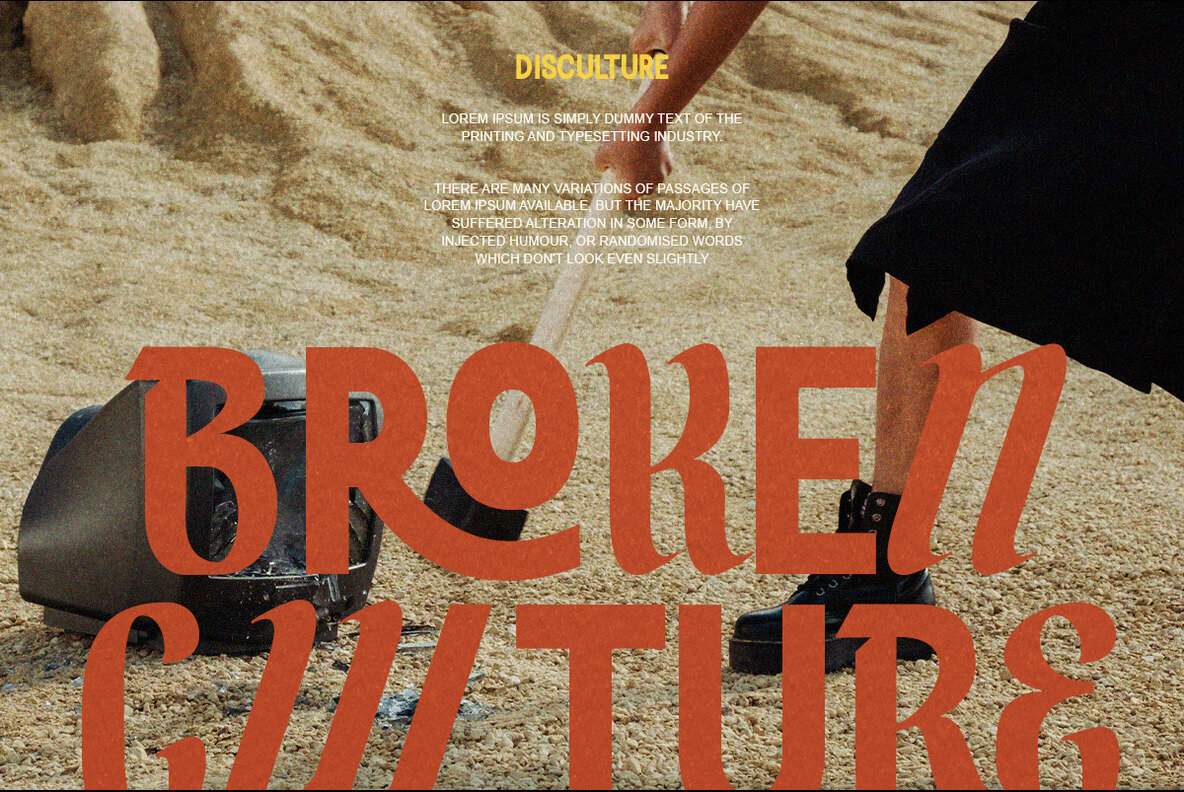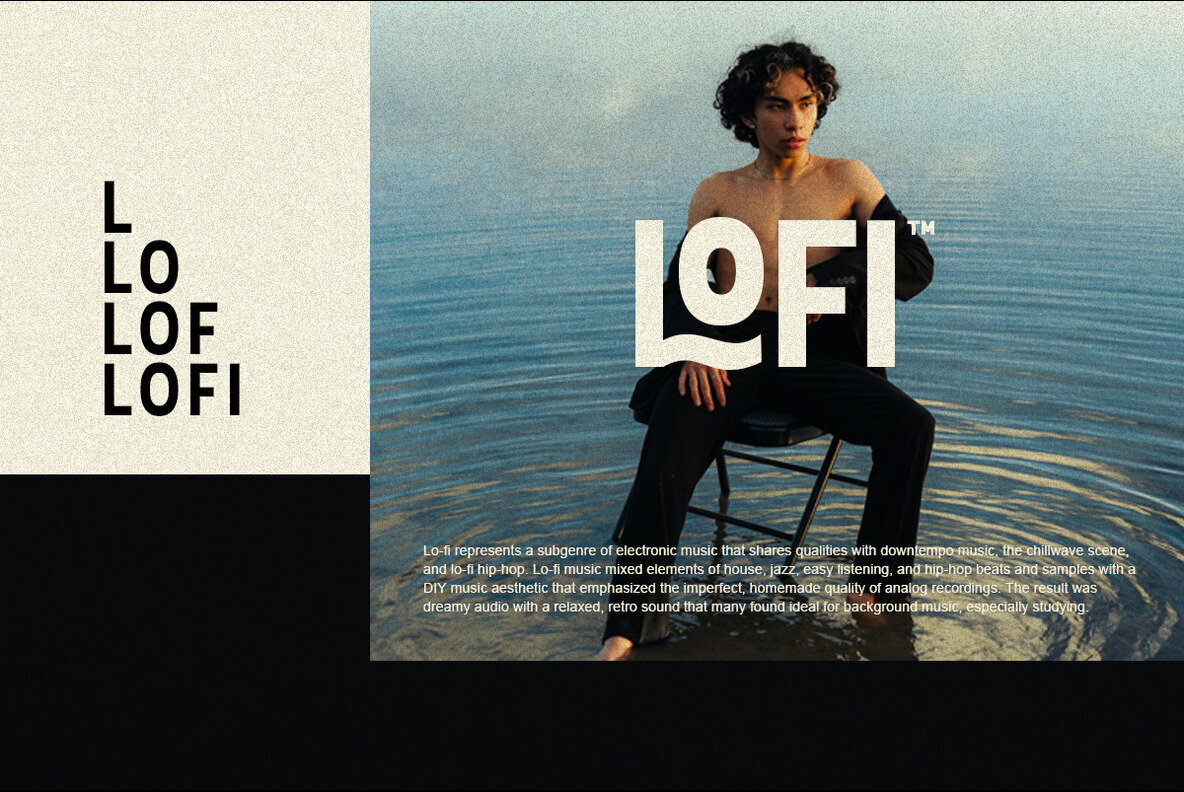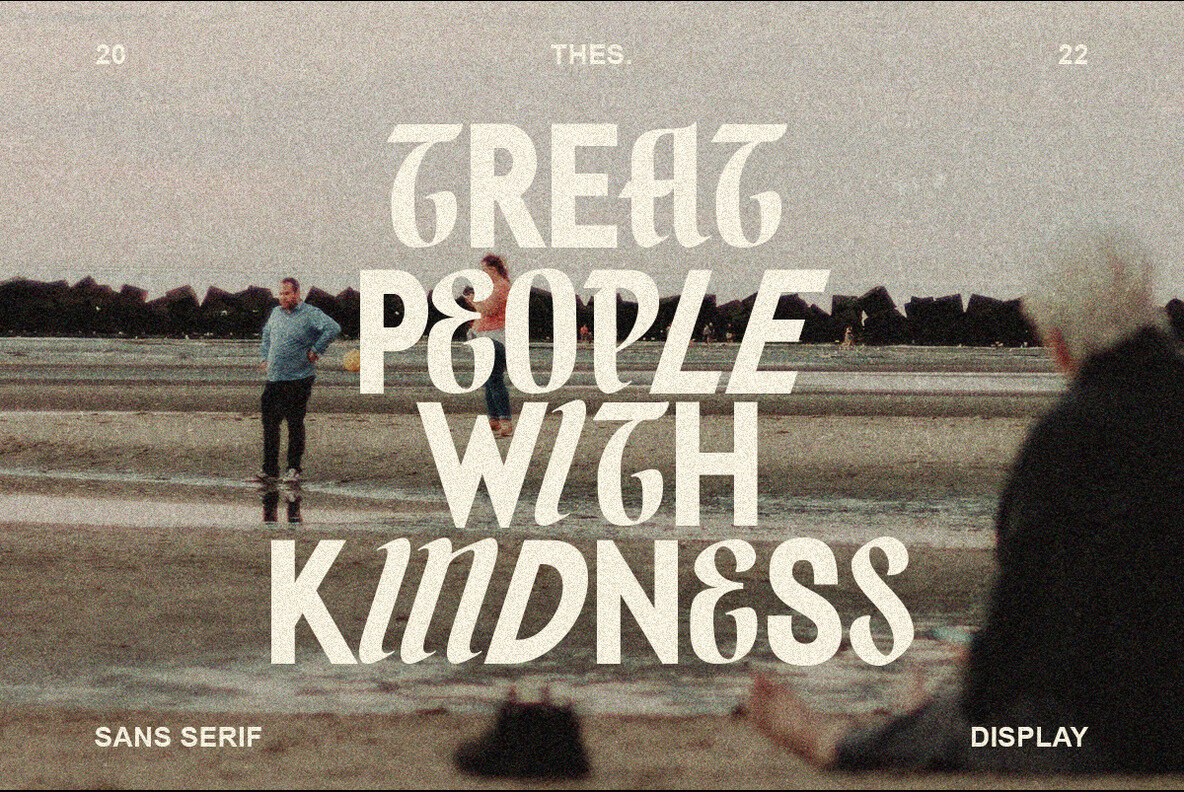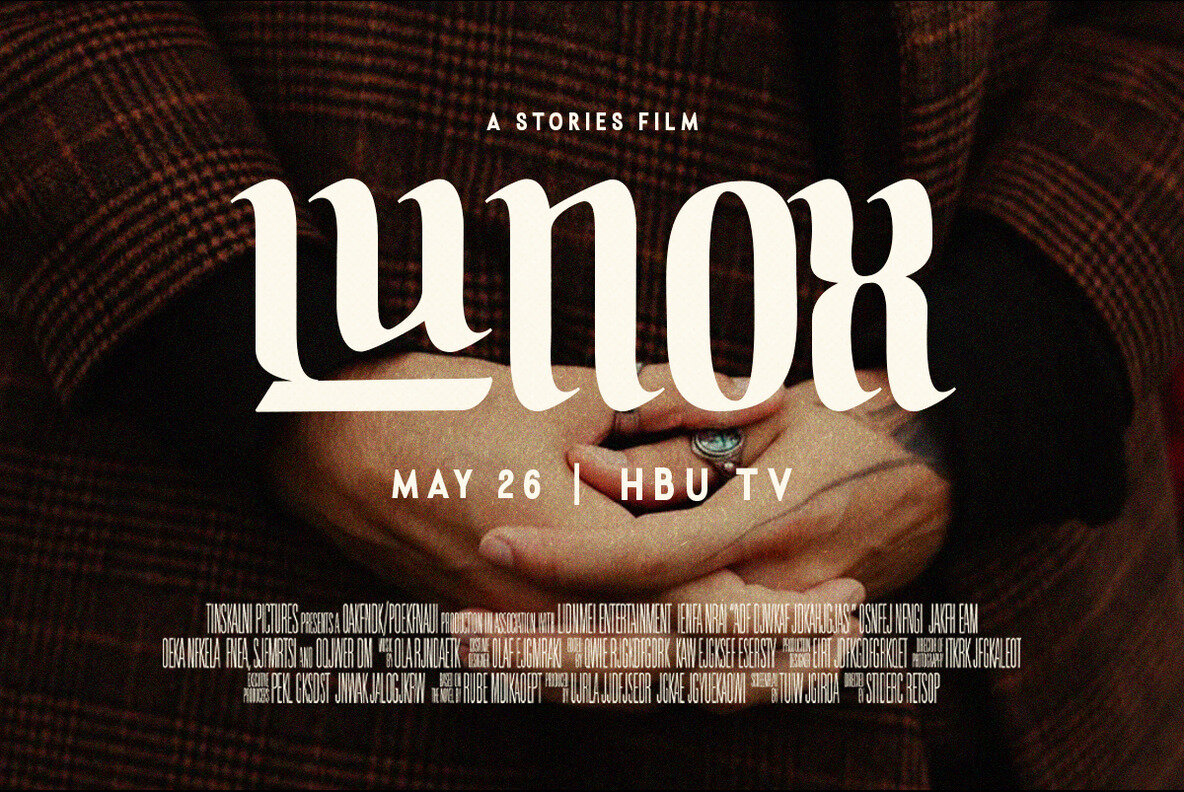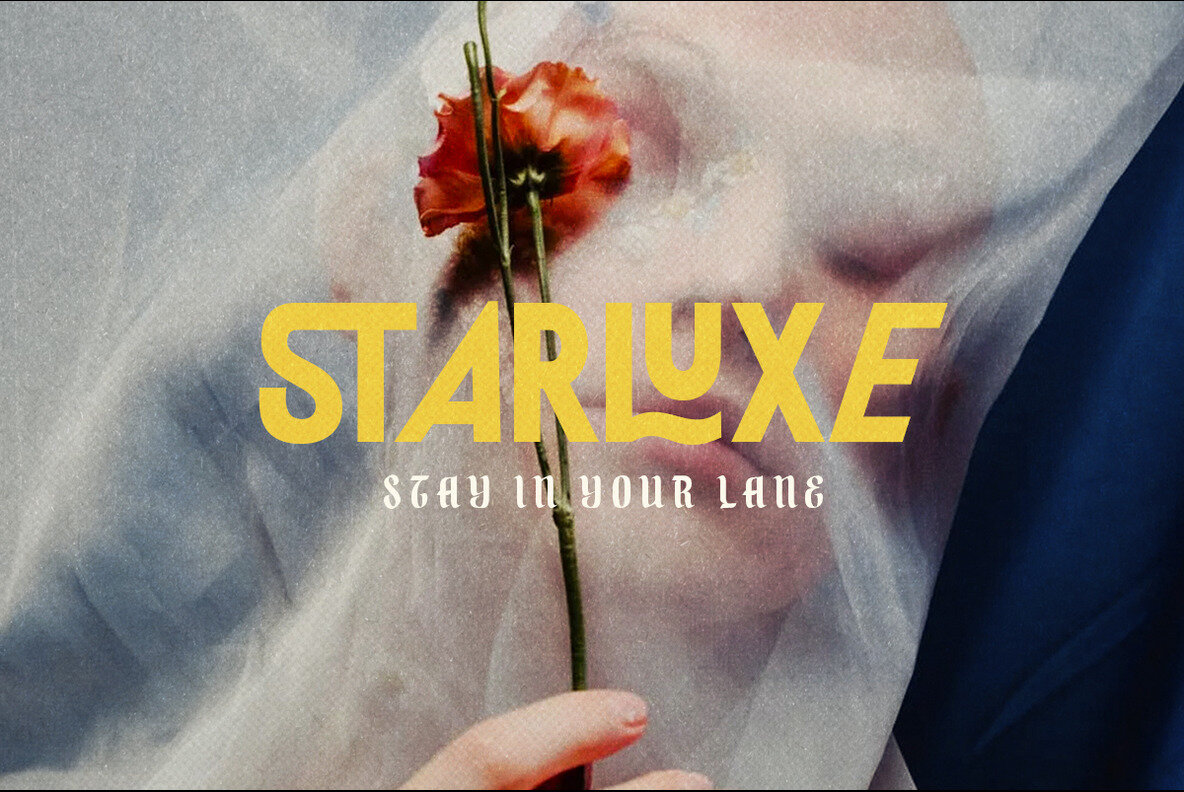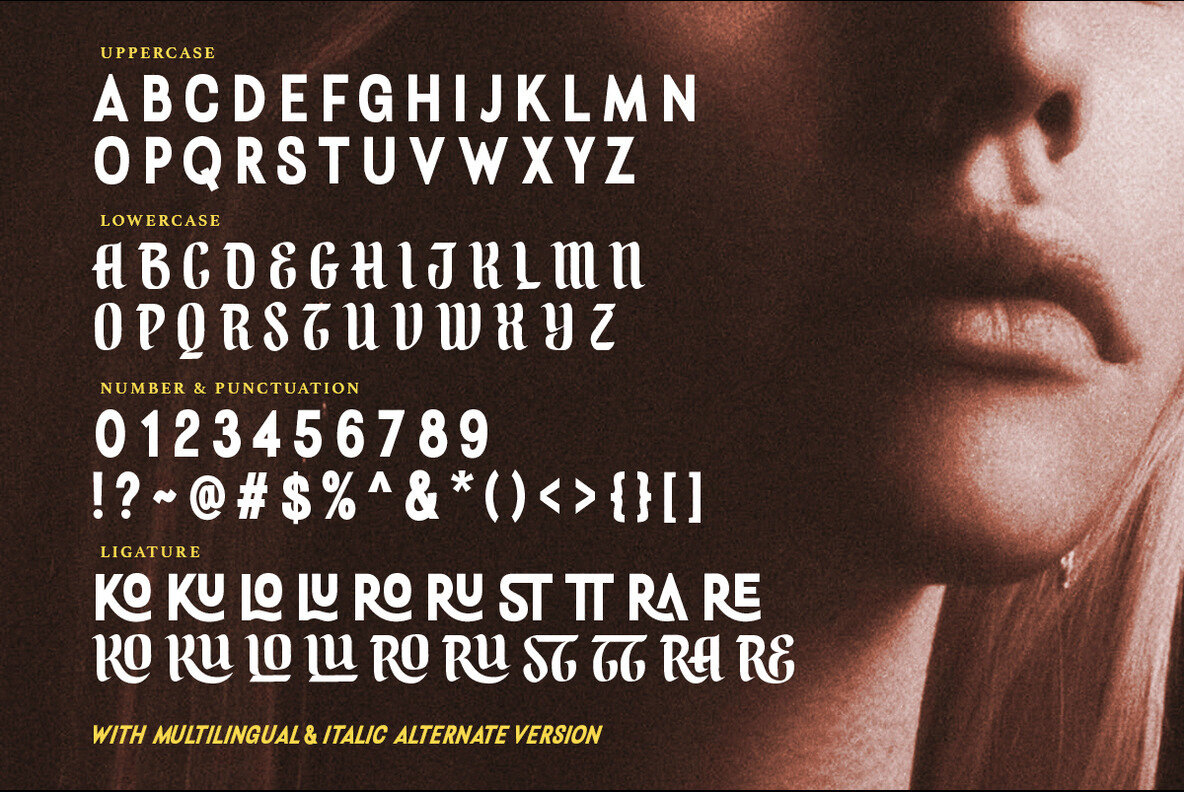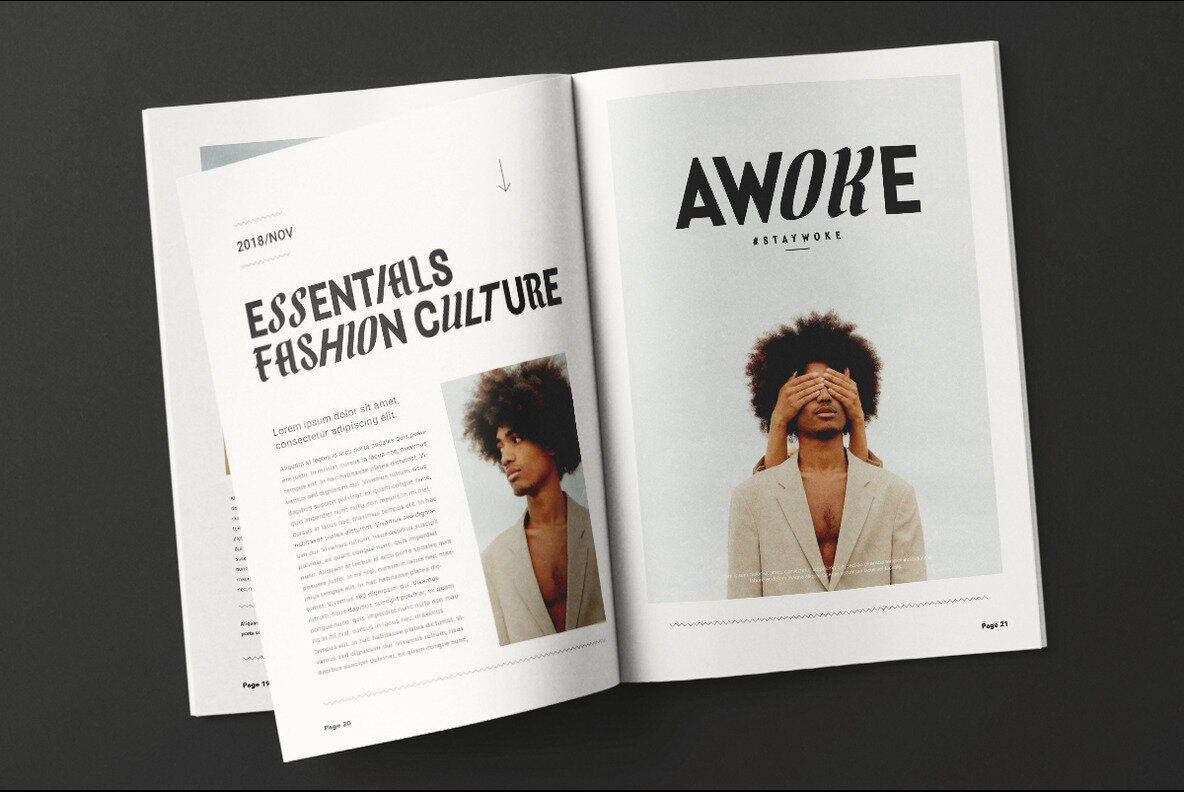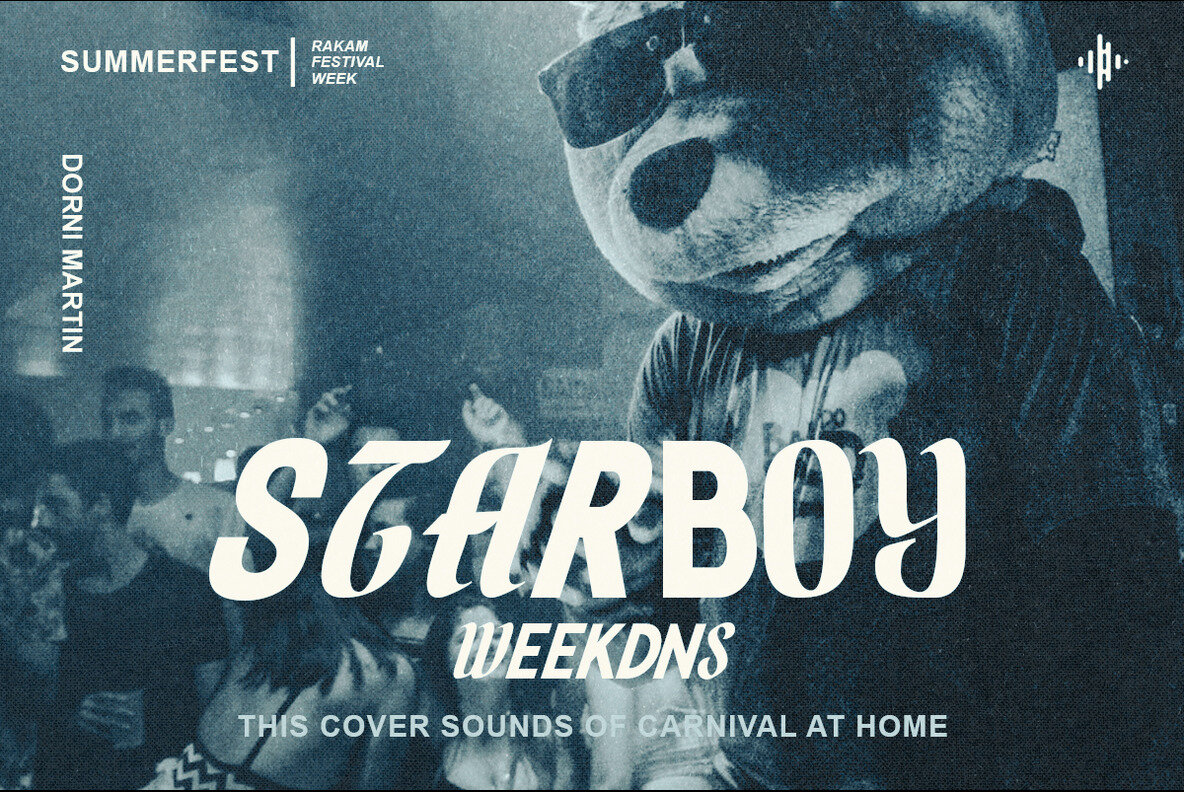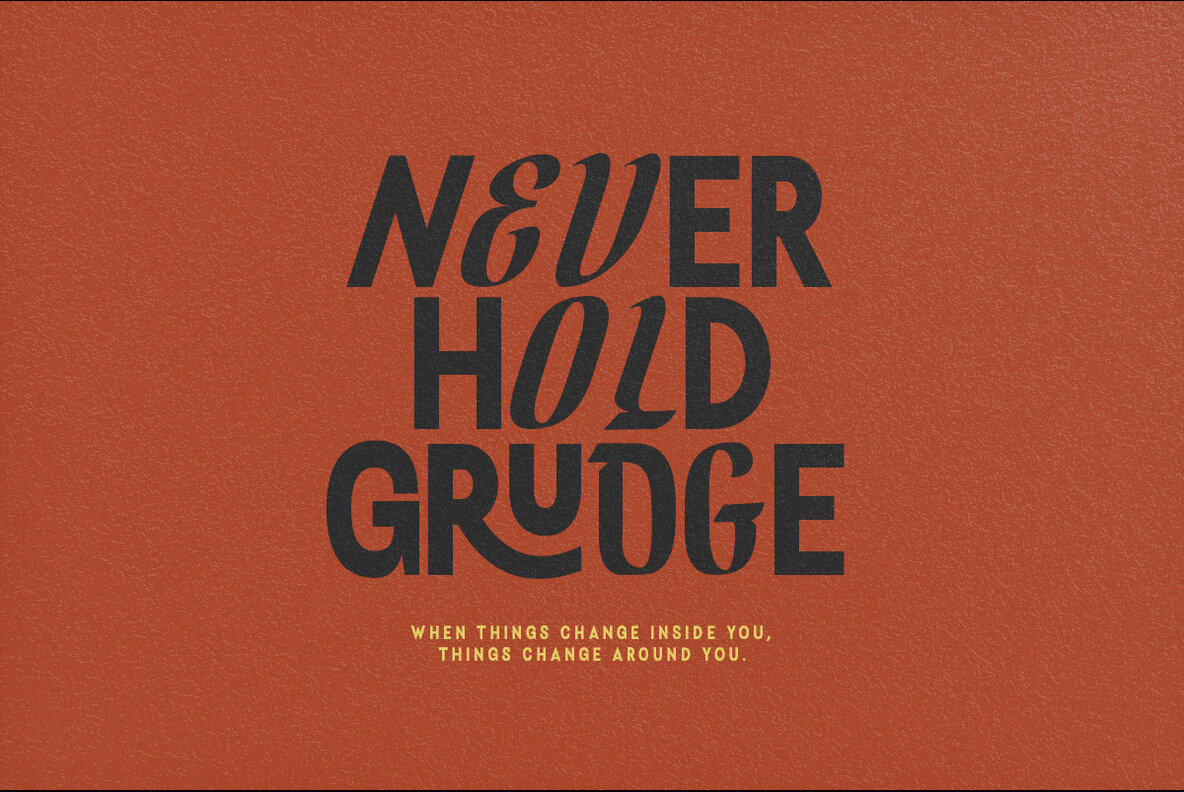
Sacred Crowns Font
Sacred Crowns Regular
Sacred Crowns is a contemporary and modish font that combined sans and blackletter in one font. With sans as uppercase dan blackletter as lowercase. You can use the lowercase and uppercase in a word that will make your project more stunning! And the best of this font is the italic version as the alternates which mean you can combine it all without worrying about the kerning! With the bold looks, you can use this font for the logotype, magazine, poster, and suitable for headline. This font also support multi language!